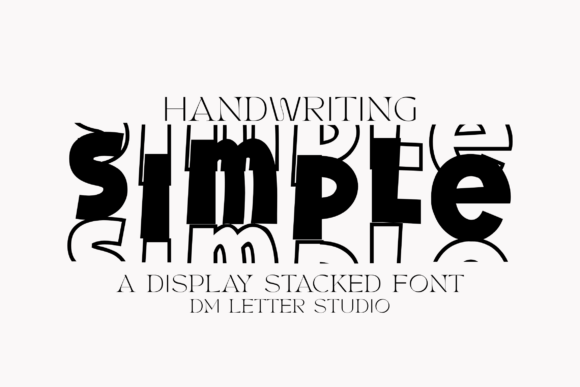
Discover the Timeless Allure of Handwritten Typography
Have you ever stared at a blank sheet of paper, searching for the perfect font to convey your brand’s essence? That’s a familiar moment for many designers. You’re not alone in the quest for the perfect typography that balances professionalism with personality.
Enter Handwriting Simple Stacked Font, a masterfully crafted typeface that harmoniously blends minimalism and organic charm. This beautifully designed font features uppercase letters arranged with precision, creating a sense of symmetry and elegance. Whether you’re creating a modern brand identity, crafting social media posts, or designing packaging, Handwriting Simple Stacked Font brings a tranquil and approachable charm to your projects. For designers, it’s a valuable tool to add a personal touch to their work, elevating readability and style in equal measure.
Handwriting Simple Stacked Font Key Features
- Unique Characteristics: Simulates handwritten text with a simple, stacked design, ideal for creative and artistic applications
Designer Review: Handwriting Simple Stacked Font
Overall, I think the Handwriting Simple Stacked Font is a solid addition to any font collection. It works well for ✨ casual, handwritten text ✨ and can be used for a variety of purposes, including blog posts, social media, and even product labels.
The font’s simplicity and lack of clutter make it easy to read and understand. It’s also quite versatile and can be used in both digital and print formats. The stacked design of the font gives it a unique touch, making it stand out from more traditional fonts.
Some potential limitations of this font include:
- ⚠️ Limited character set: The font may not include all the characters you need for your project, which could be a problem if you’re working on a long document or a complex design.
- ⚠️ Limited customization options: While the font is versatile, it’s not highly customizable, which may limit its use in certain situations.
- ⚠️ May not be suitable for formal or professional applications: The font’s casual, handwritten feel may not be suitable for formal or professional documents, such as business reports or academic papers.
Overall, I think the Handwriting Simple Stacked Font is a great choice for designers who want a simple, easy-to-read font for casual projects. While it may have some limitations, it’s a solid addition to any font collection.
Practical Application Guide: Handwriting Simple Stacked Font
The Handwriting Simple Stacked Font is ideal for creating a personal and whimsical touch in various design projects, such as:
- Invitations and event stationery
- Wedding and baby shower decor
- Personalized gifts and cards
- Children’s party decorations and invitations
To get the most out of the Handwriting Simple Stacked Font, experiment with different font sizes, colors, and text effects. Combine it with other fonts and design elements to create a unique and eye-catching look.